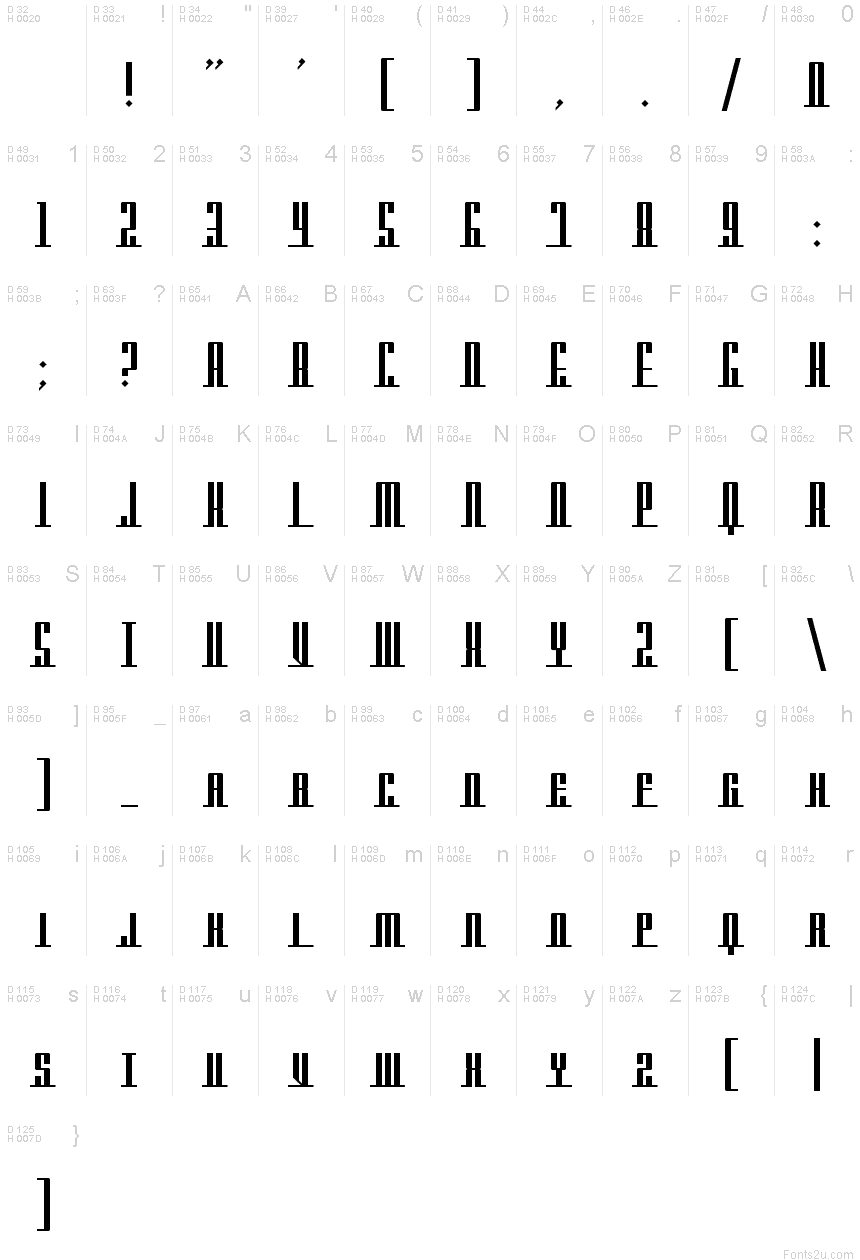
Americana Dreams SC Upright
Americana Dreams SC Upright font by ShyWedge is a free retro display typeface that channels vintage marquee signs and old-school cinema titles. Its tall, condensed letters stack up like neon tubes—rigid, vertical, and tightly spaced—giving headlines a strong, theatrical presence even in a single word. The rigid rhythm of the strokes feels almost mechanical, which adds a bold, urban edge to any layout.
Using Americana Dreams SC Upright, your work instantly recalls classic posters, game titles, diner signage, album covers, and bold branding for bars or events. This free font shines on banners, web headers, logotypes, packaging, and retro-themed social media graphics where space is tight but impact needs to be huge. For balance, pair it with a simple geometric sans or a neutral grotesk in smaller sizes to keep body text clean while this typeface does the heavy lifting in your titles.